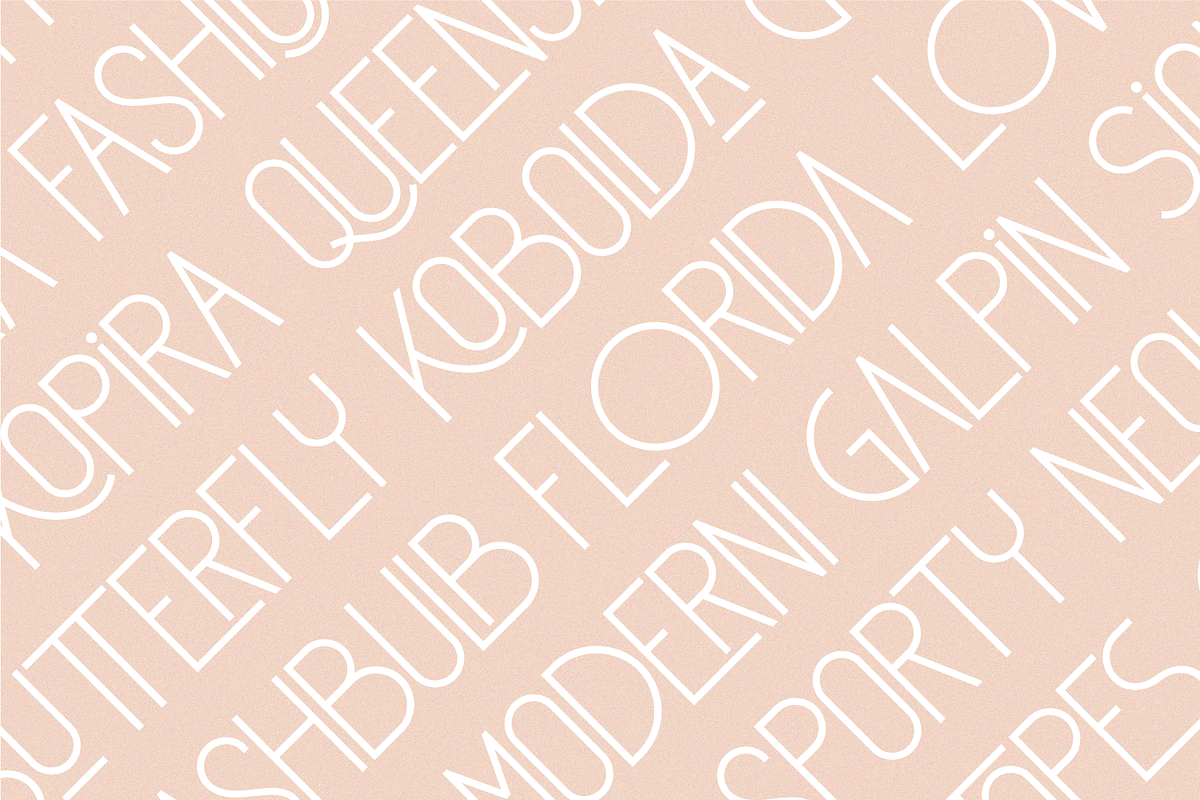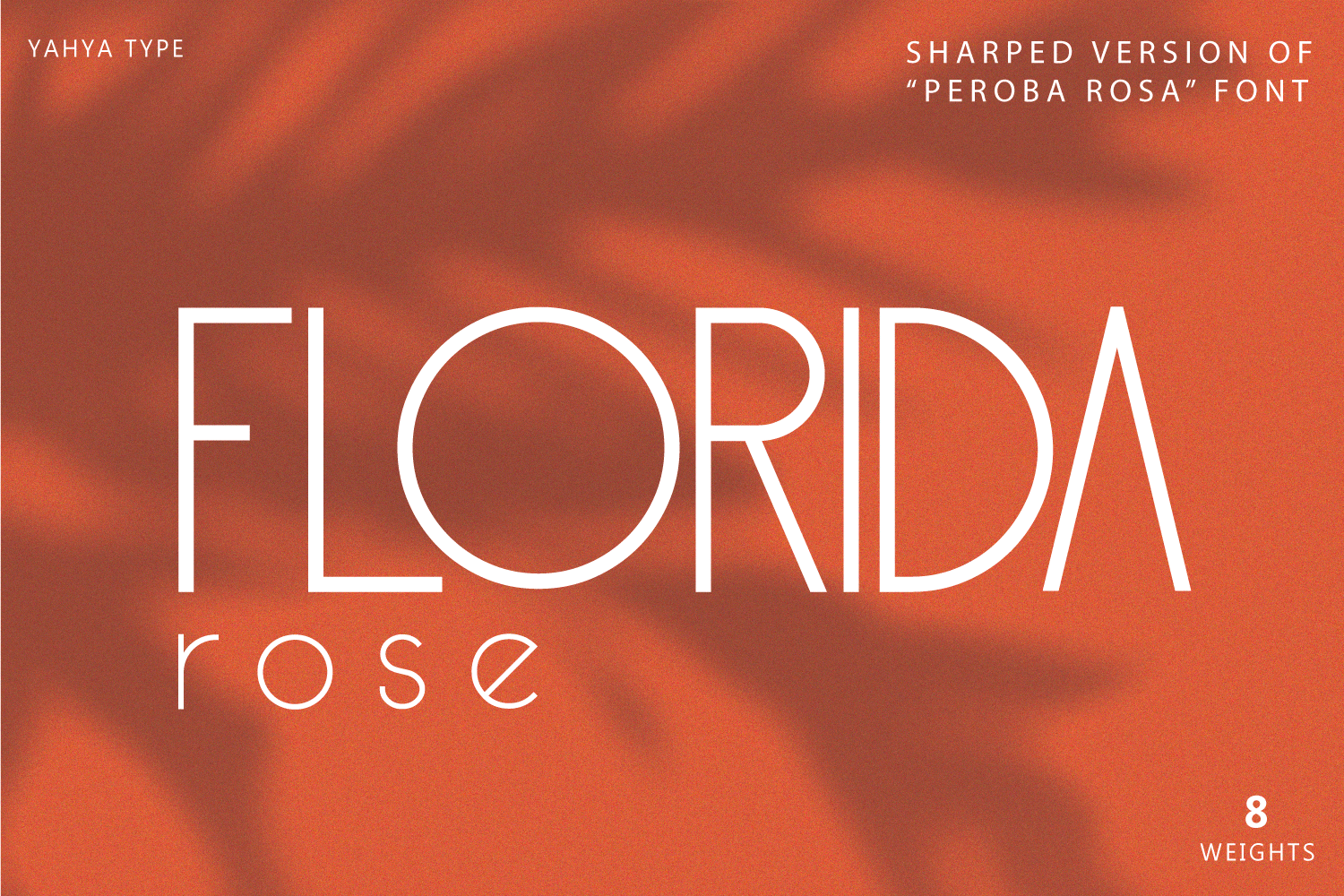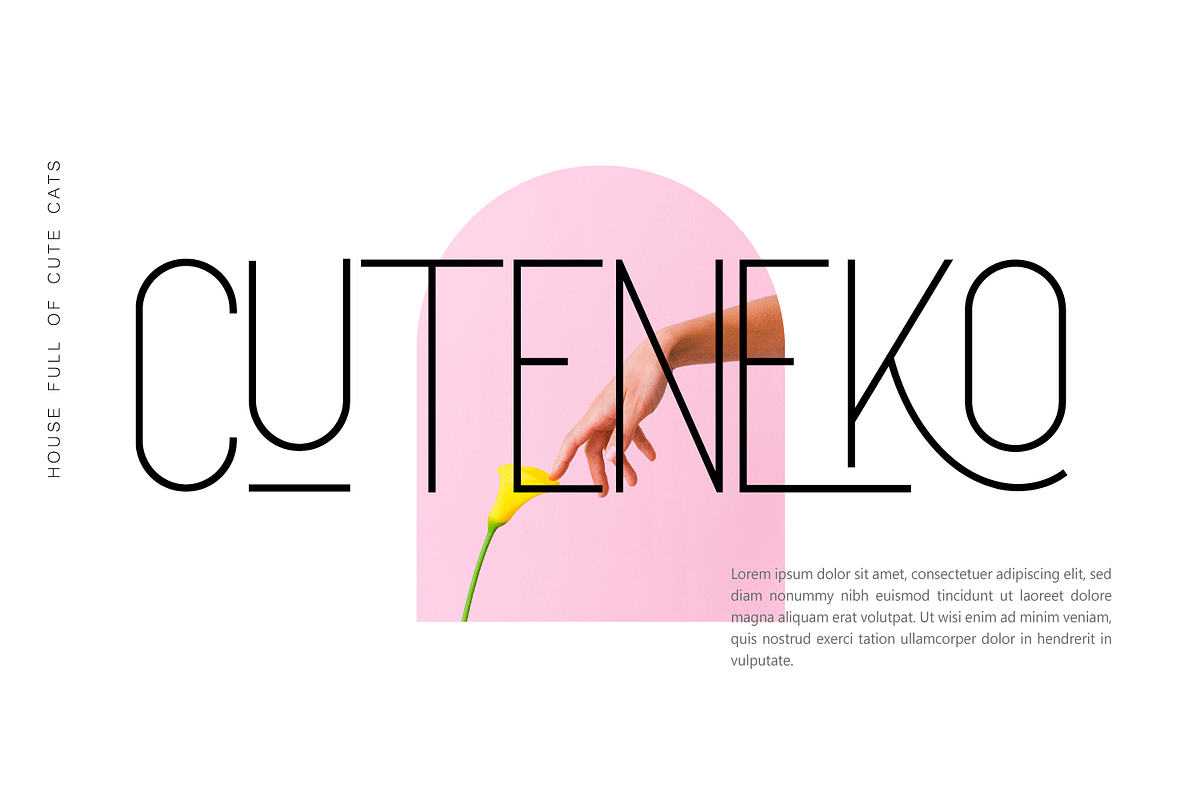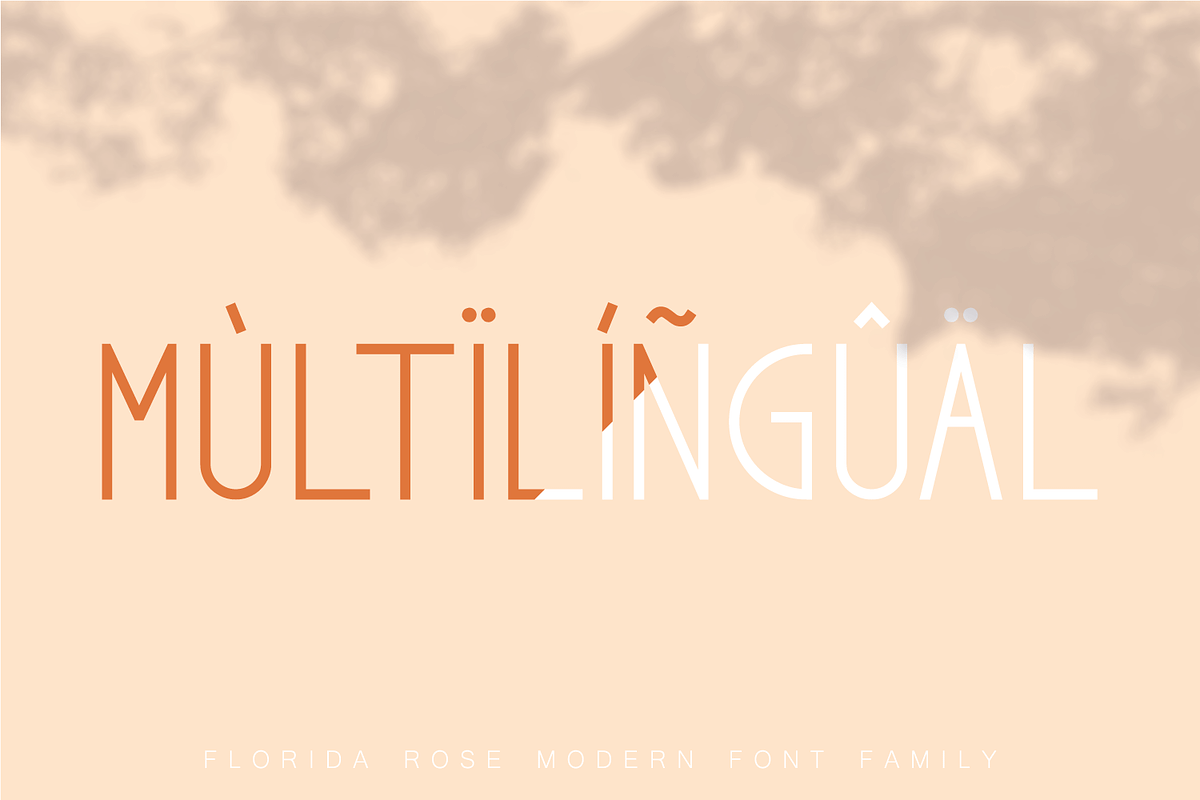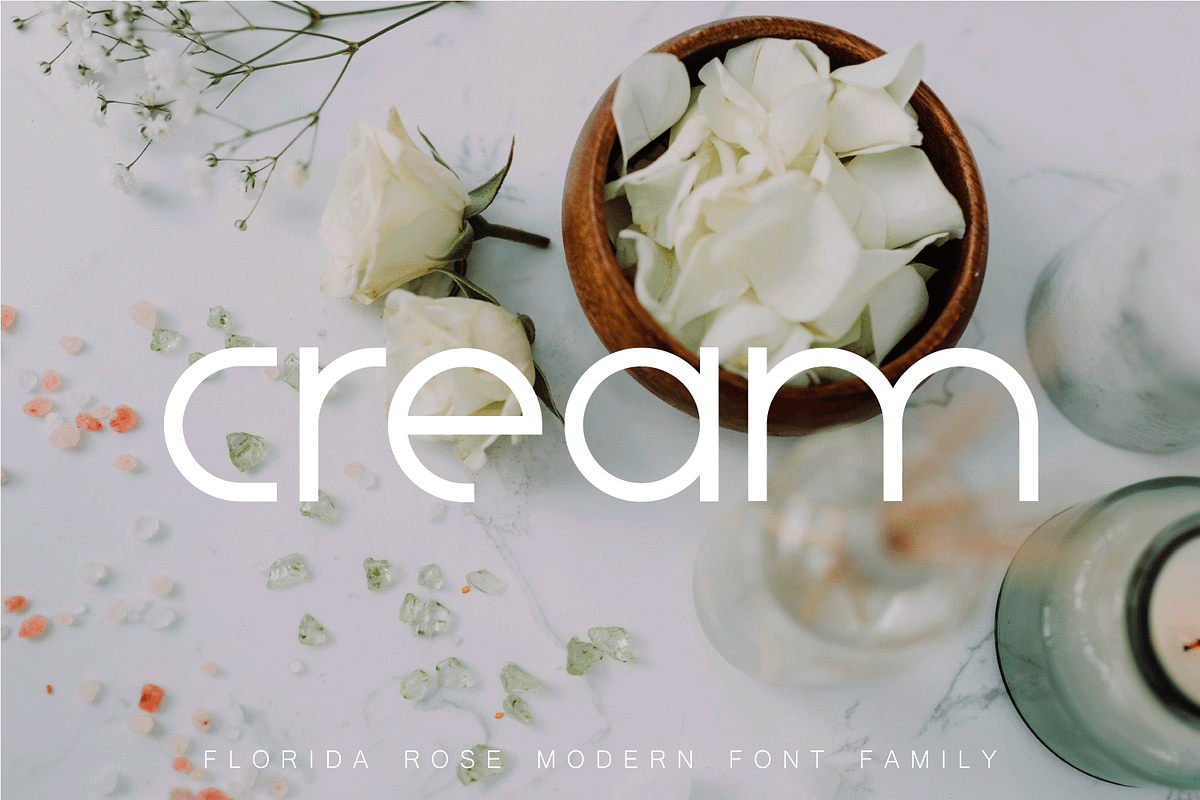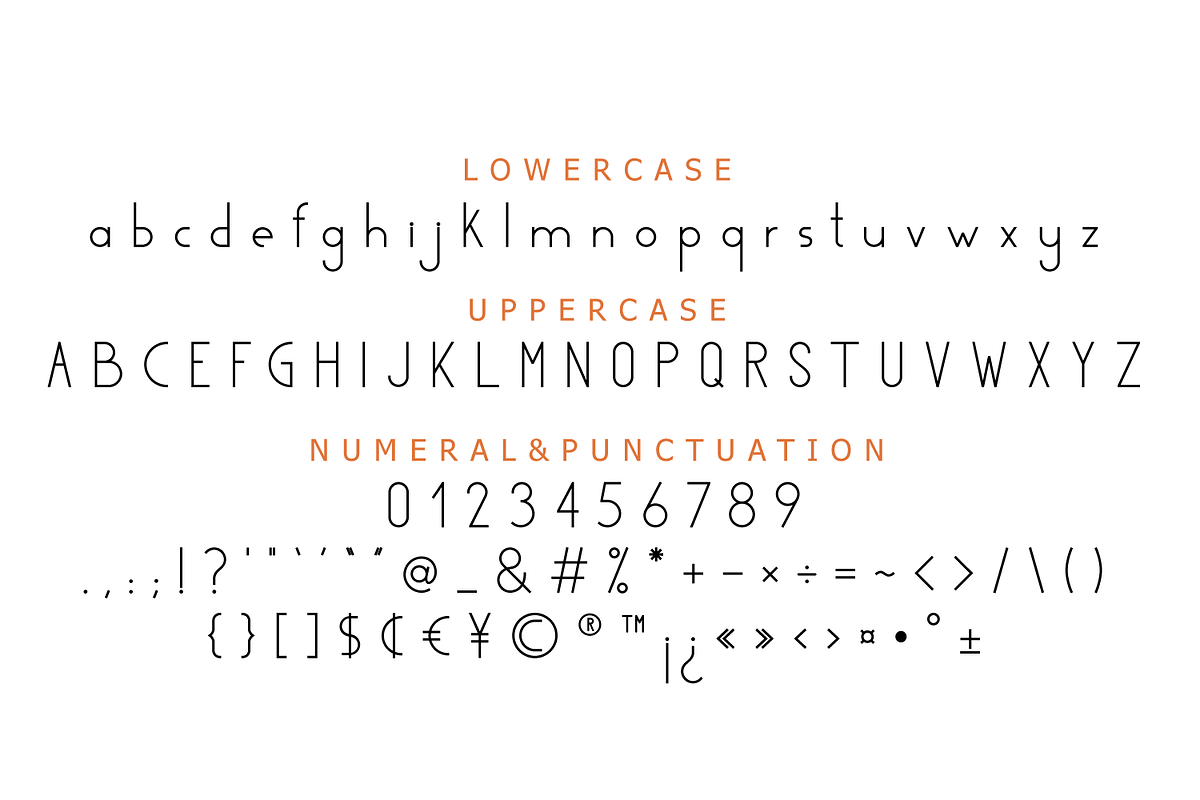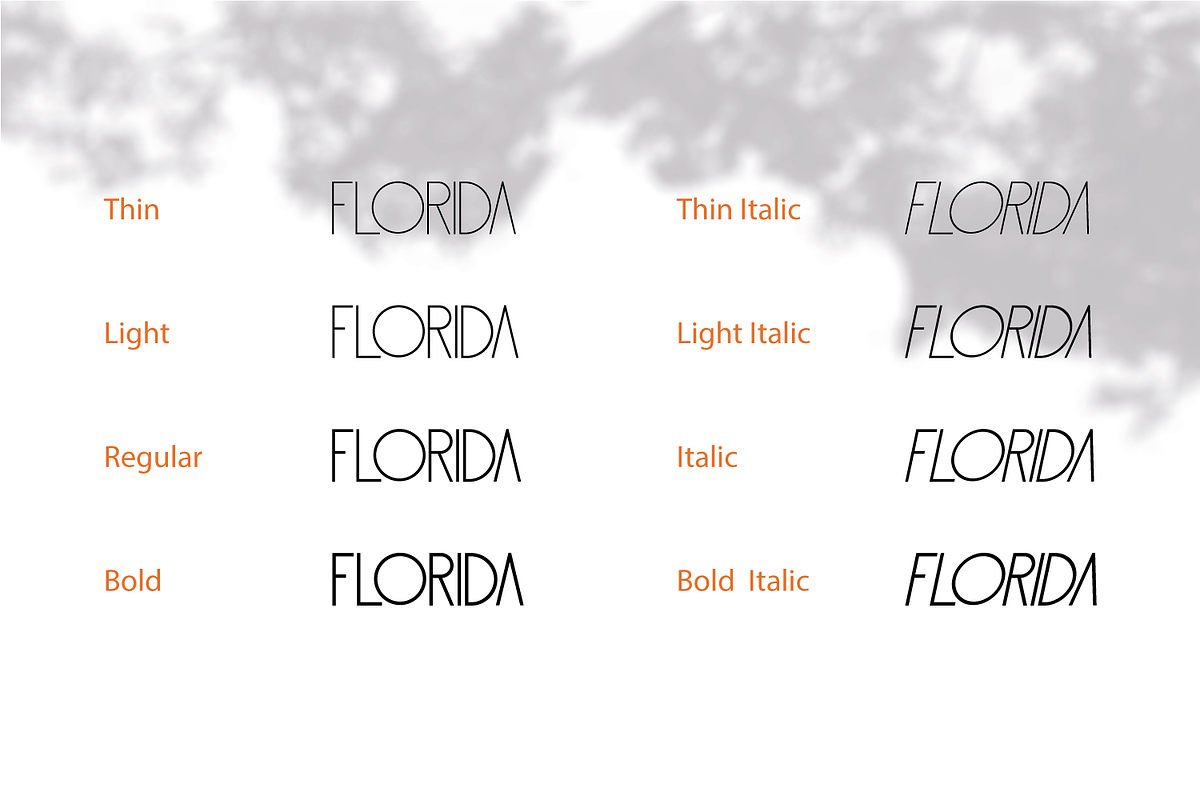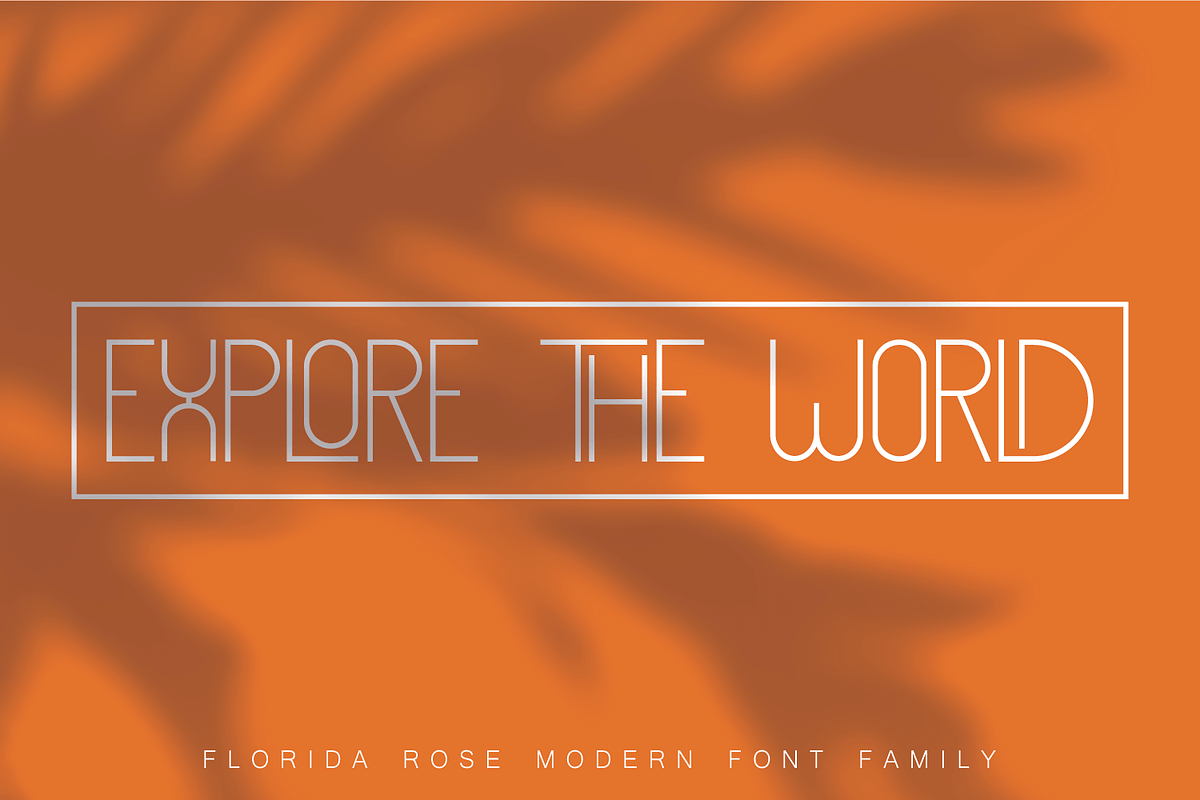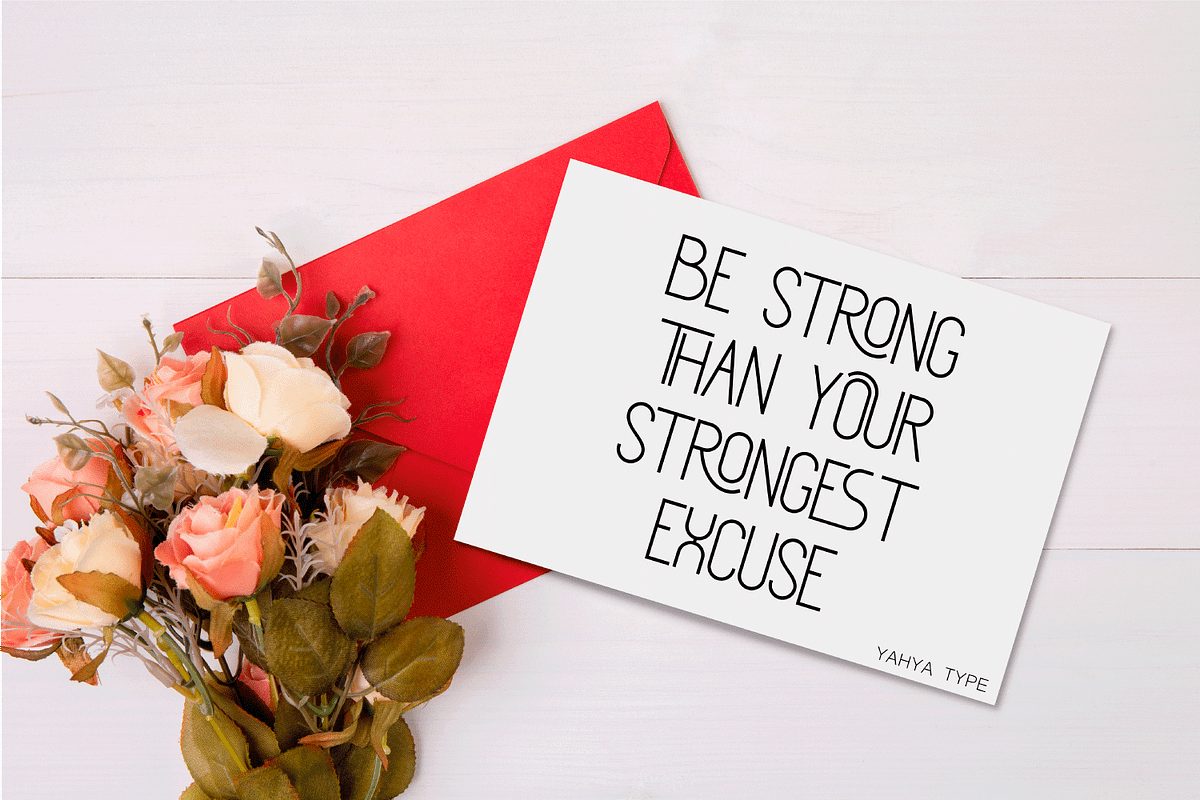
Florida Rose - Modern Font Family
Florida Rose is a Sharped version of "Peroba Rosa" Font. It is a modern sans serif type family featuring a blend of modern, classical, and playful characteristics. The simple, clean forms and classically inspired proportions give it a timeless quality and interesting visual rhythm. Florida Rosa is perfect for logo design, magazine headers, product packaging, branding projects, clothing or simply as a stylish text overlay to any images or websites.
• Comes with regular, thin, light, italic, bold, thin italic, light italic, bold italic and bold italic font styles. • Uppercase & lowercase letters, numbers, punctuation Ligature & Huge Stylistic alternate, Multilingual support.